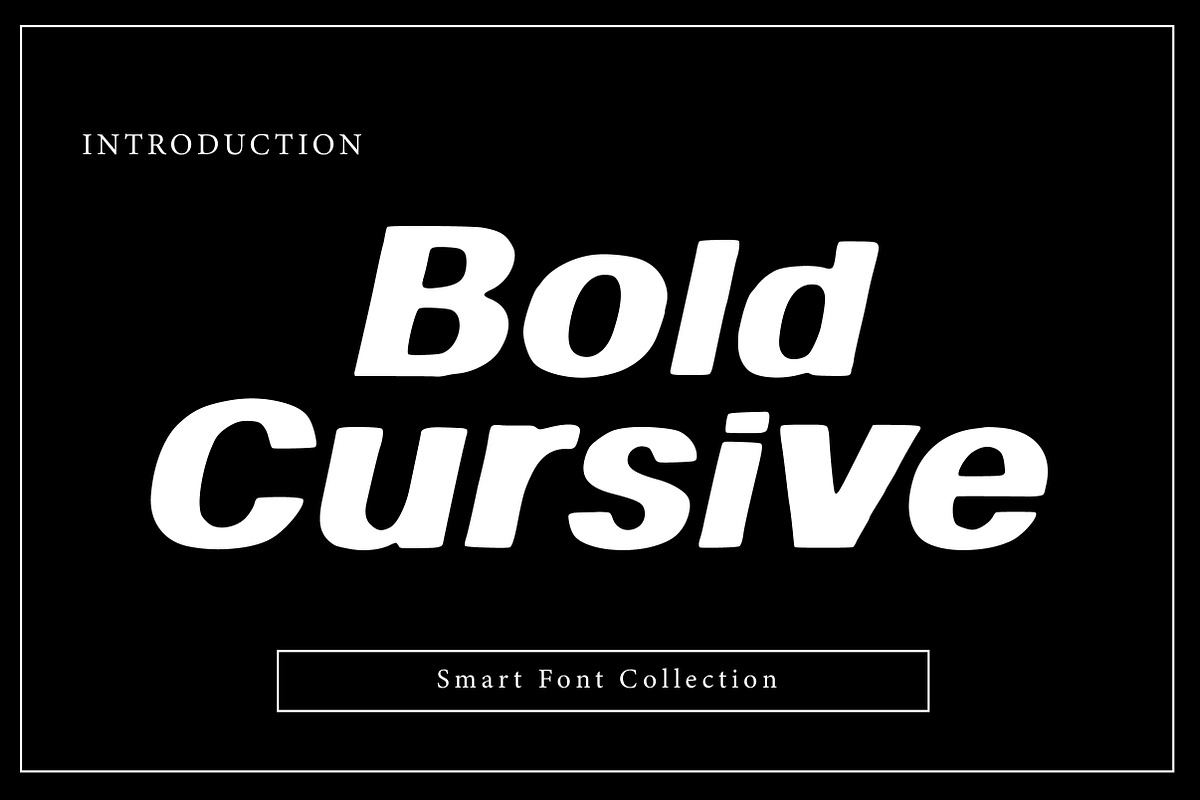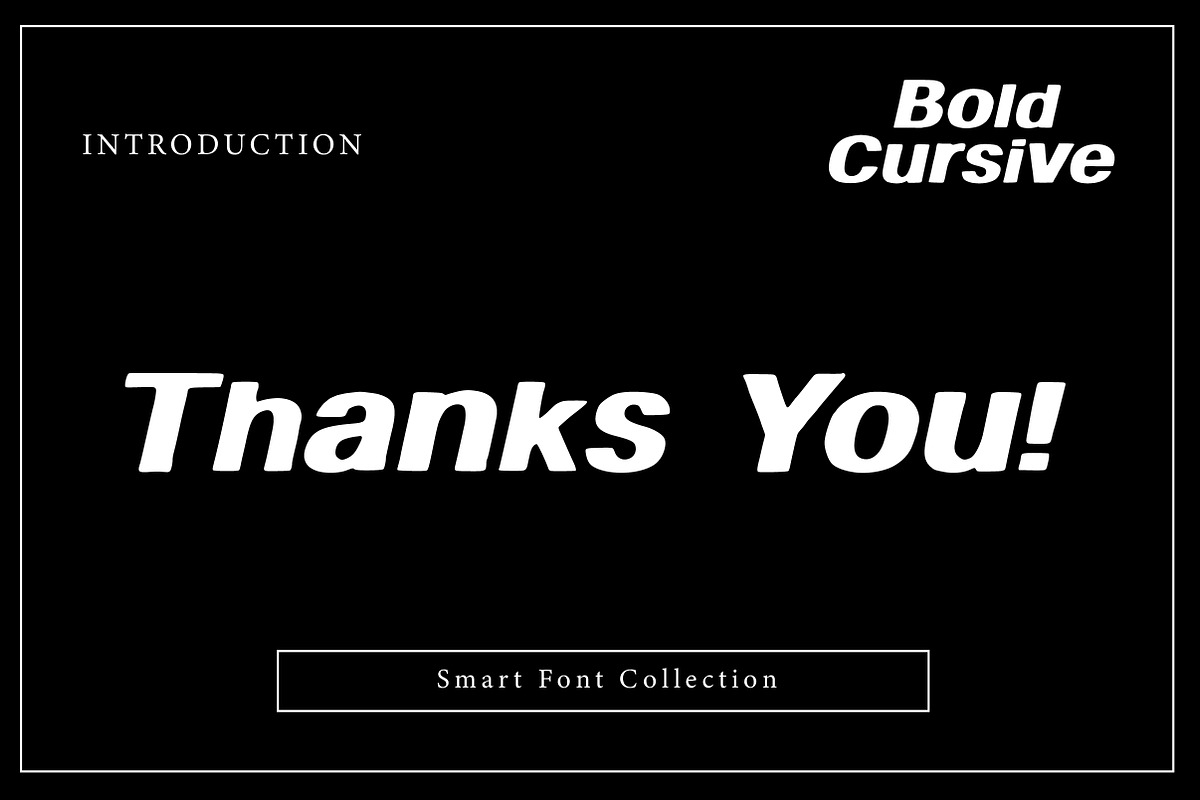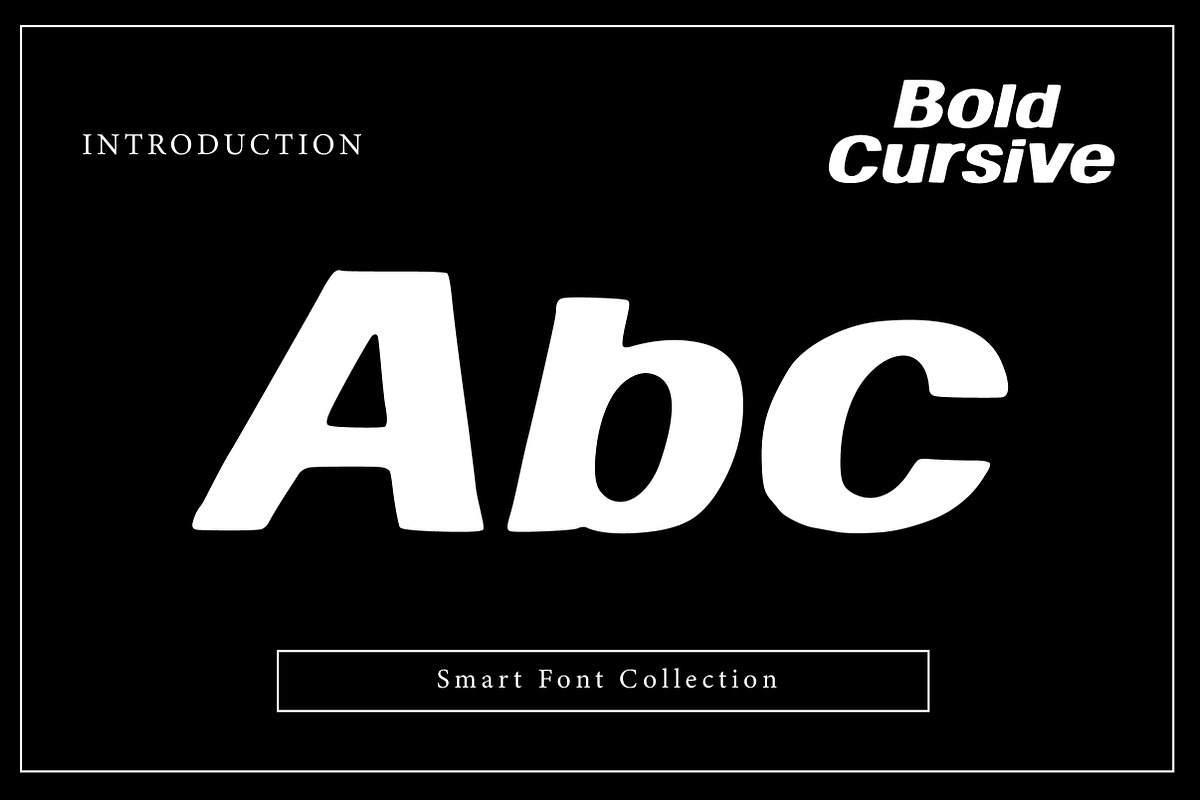
Bold Cursive
Bold Cursive is a smooth, stylish, and modern cursive typeface with bold strokes and a clean flowing rhythm. The font combines the elegance of handwritten script with the strength of bold typography, creating a confident and expressive look. Its slightly italic movement adds a dynamic and friendly personality, making it highly readable while still visually attractive.